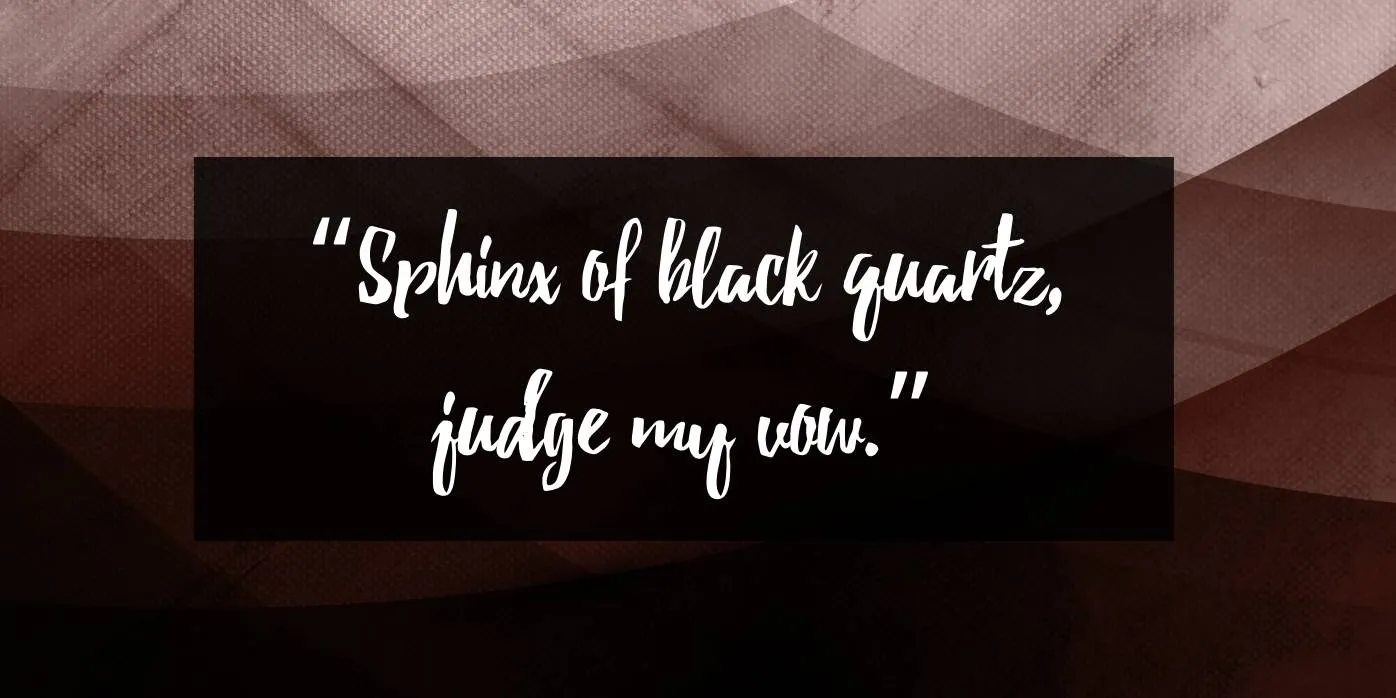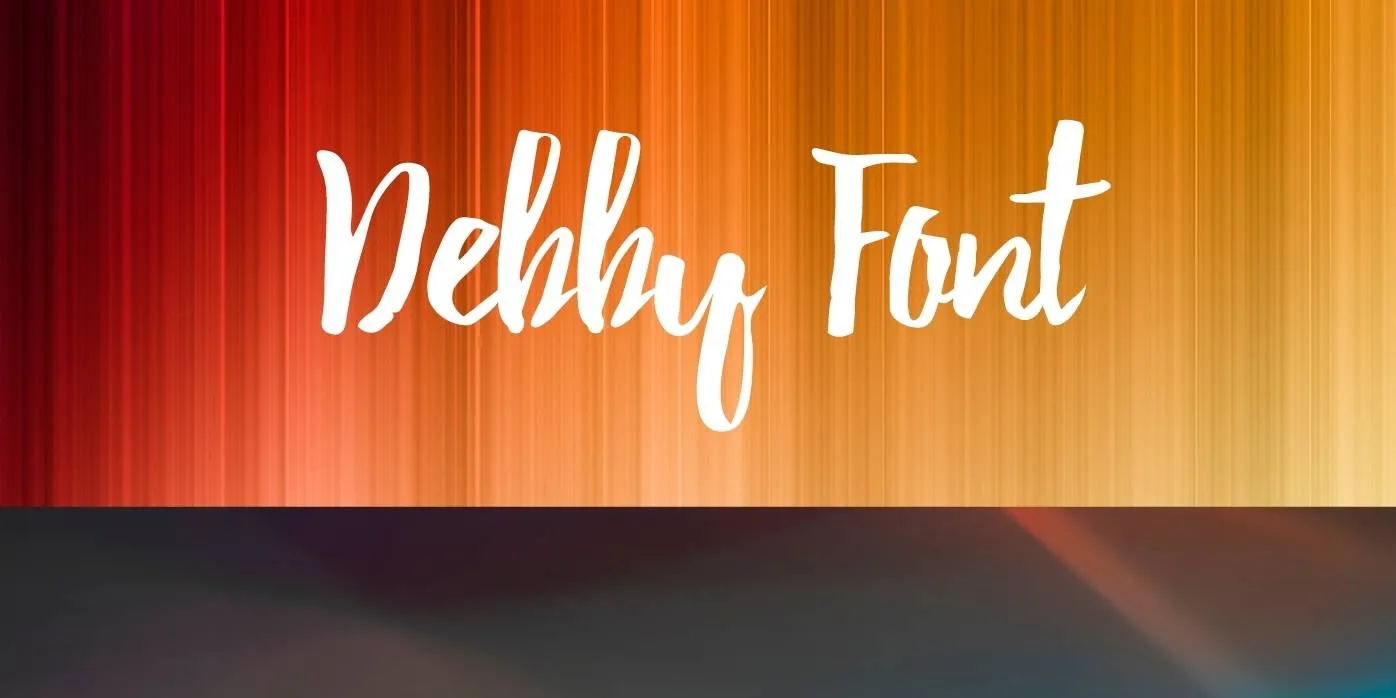
Debby Font is a brush typeface designed by Artimasa Studio and released through Sudtipos in 2004. The font is inspired by the handwriting of Debby Ryan. This awesome typeface comes in Four popular weights Regular, Italic, Bold and Bold Italic.¬† This cozy font family is best for different other programs like Adobe Photoshop, Adobe Illustrator, and Canva. If you’re looking for a brush typeface that captures the personality of your design project perfectly, look no further than this font is best.
This fun and casual brush typeface comes with over 400 characters and alternates. It’s perfect for any design project that needs a touch of personality. This typeface is popular in the industry because of CSS and SVG. For more features, it‚Äôs similar Brushed font is very popular and interesting.
It would be especially great for projects that need a handwritten look. It is very famous due to its bouncy texturing. The font has enjoyed much success, being featured on popular websites. You can buy it directly from the Artimasa Studio website or download it for free from Google Fonts.